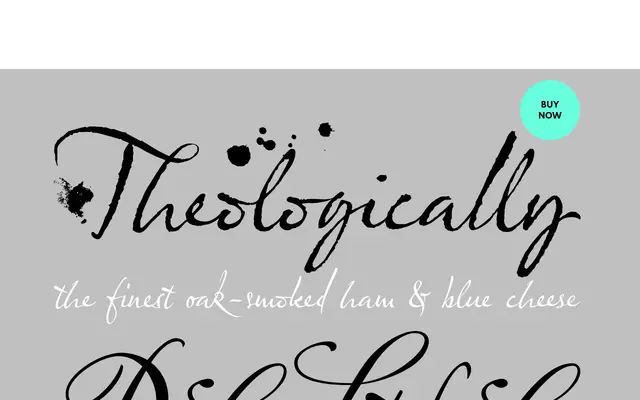
Olicana
A fountain-pen handwriting script in three variants, using OpenType contextual ligatures to reduce glyph repetition and improve authenticity.
Three subfamilies cover a spectrum from crude to refined: Rough for raw, unpolished results; Smooth for a more schooled feel; and Fine for a delicate touch. The font relies heavily on OpenType's contextual alternate and ligature features to swap letter combinations automatically as you type, avoiding the telltale repeated-glyph look common in lesser handwriting fonts. The character set also includes swashes, small caps, ink splats, crossing-outs, fractions and ordinals, with language support across West European, Central and East European, Baltic and Turkish Latin scripts.
Olicana is a handwriting-style script mimicking fountain pen writing, with contextual ligatures and alternates that give it the irregular character of genuine handwritten text.